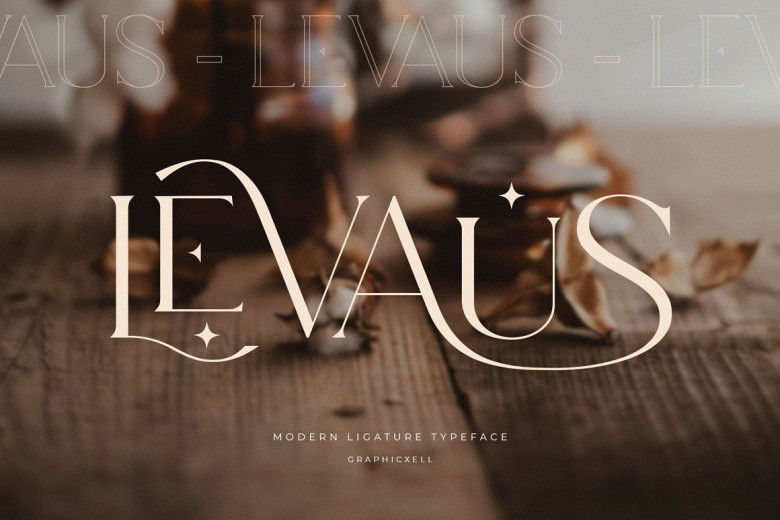
Levaus Font
Levaus Ligature inspired by the famous logo which is minimalistic at best. Now It brings to the purposes of designing templates, brochures, videos, advertising branding, logo, invitation, layout design, elegant crafting, beauty design and so on.
Levaus Serif Font